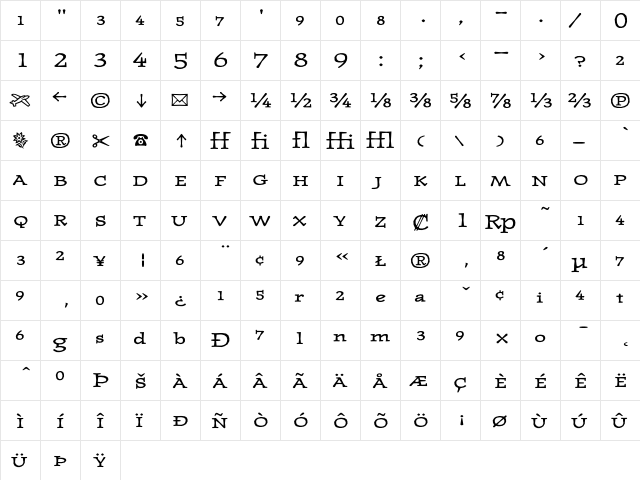
JournalUltraFractions Regular
Design Context for JournalUltraFractions Typeface
JournalUltraFractions is a composed and adaptable typeface that performs quietly and consistently across a wide range of design contexts.